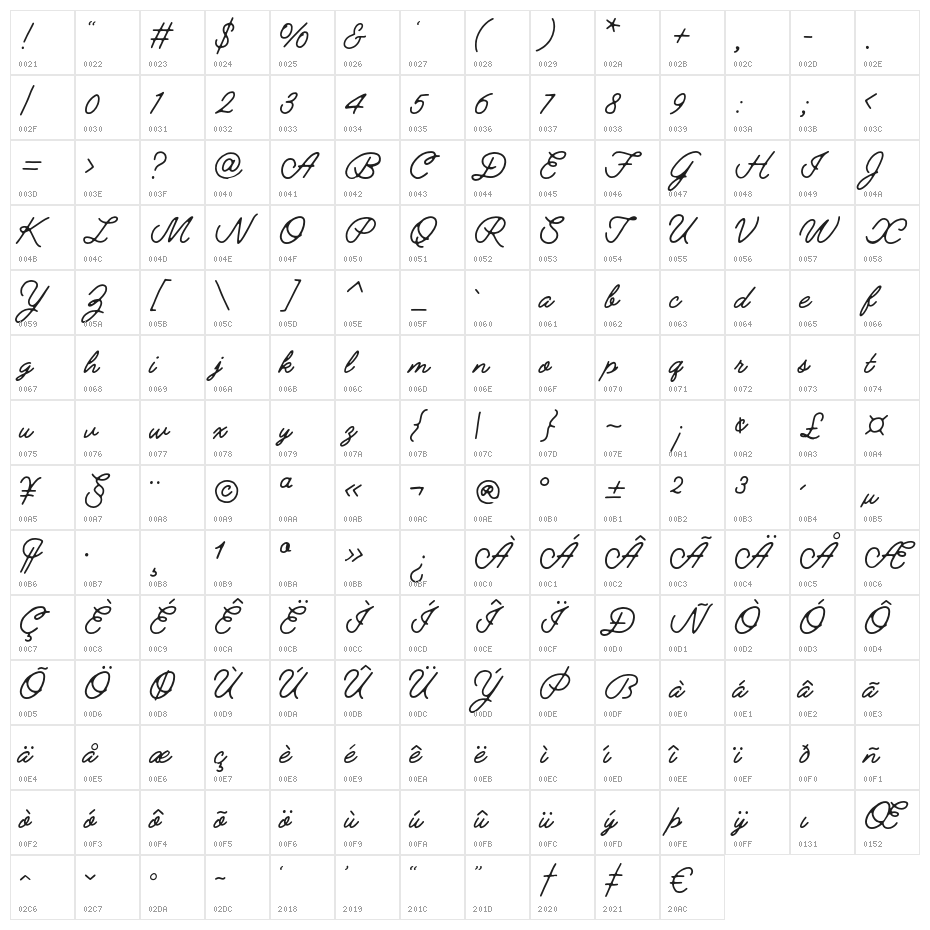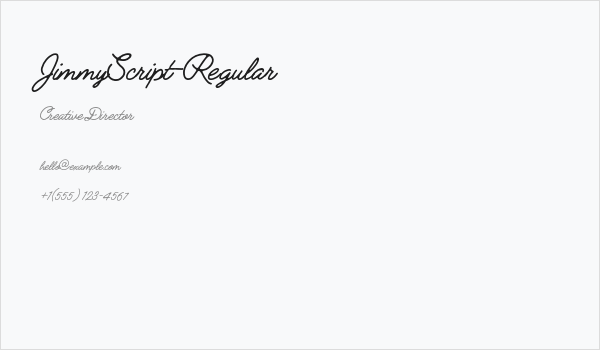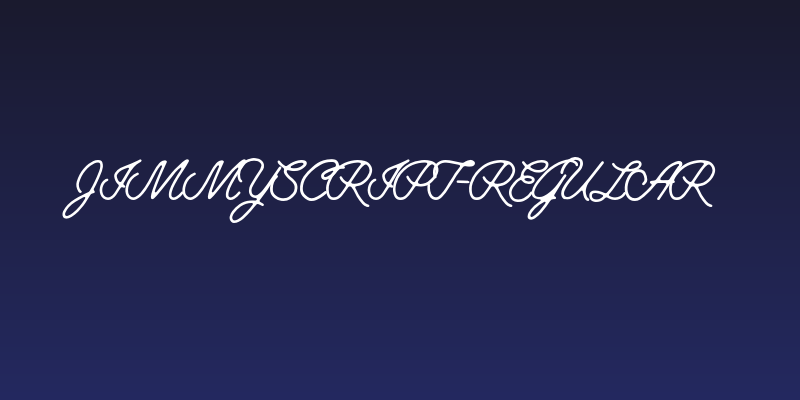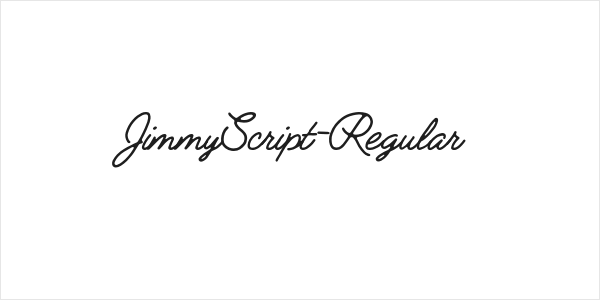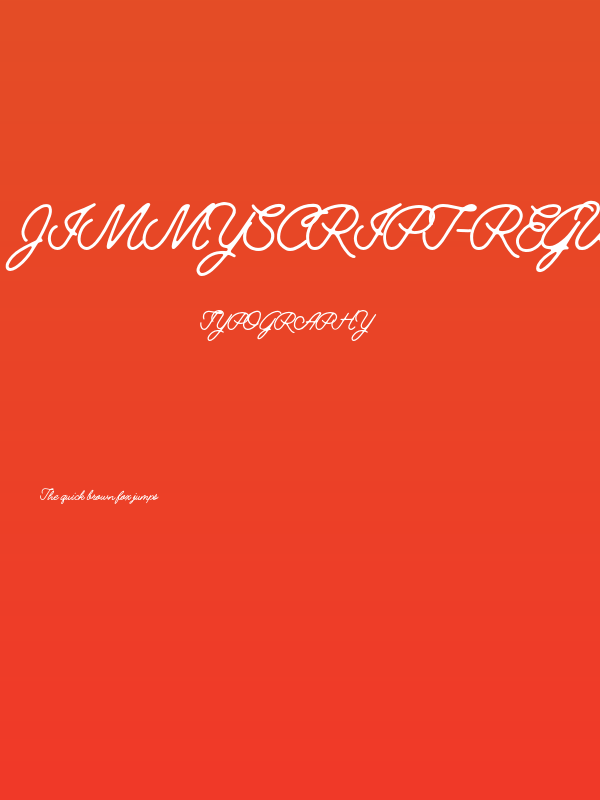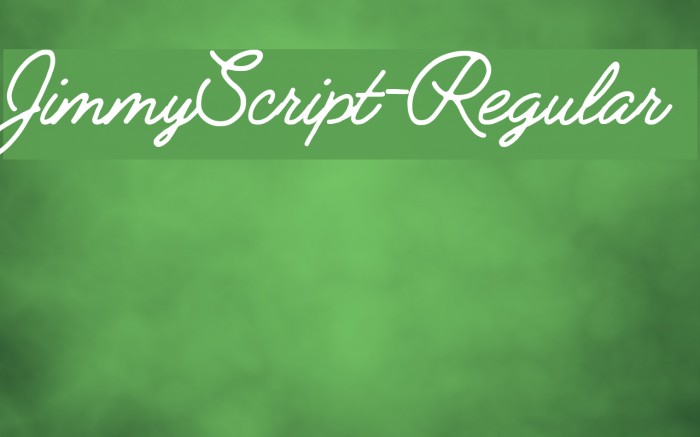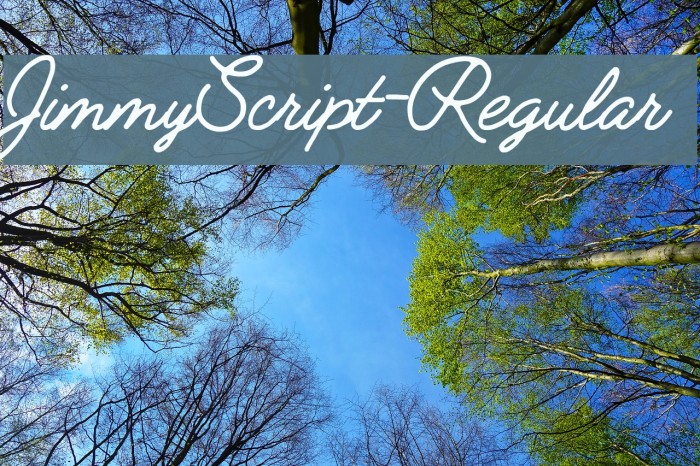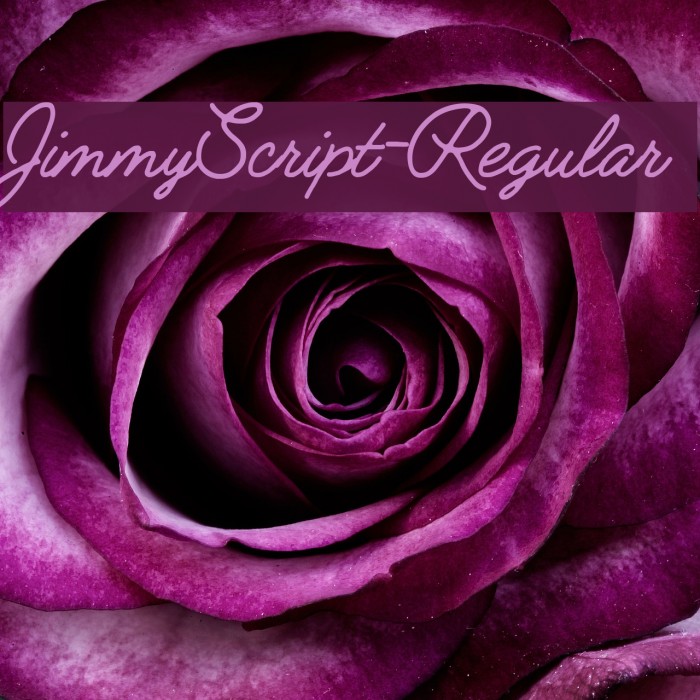
JimmyScript-Regular Font
JimmyScript-Regular Description
This font features a flowing, cursive style that mimics elegant handwriting. The characters are interconnected, creating a seamless and fluid appearance. The strokes are moderately thick, providing a bold presence while maintaining readability. Each letter has a distinct slant, enhancing the script's dynamic and lively feel. The numbers and special characters follow the same cursive style, ensuring consistency across all glyphs. This font is perfect for projects that require a personal touch, such as invitations, greeting cards, or branding materials that aim to convey sophistication and warmth.
| Proposed Projects | Ideal for invitations, greeting cards, branding materials, and any design needing a personal, elegant touch. |